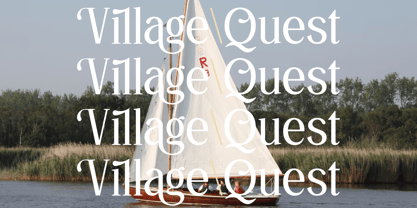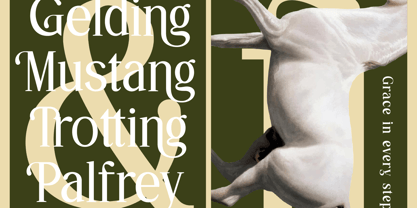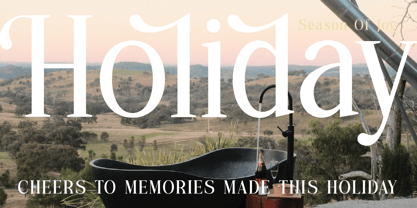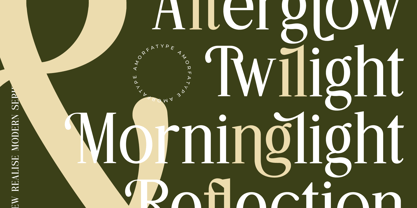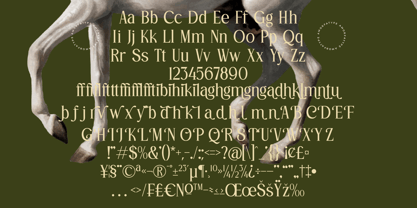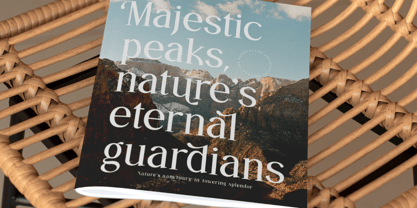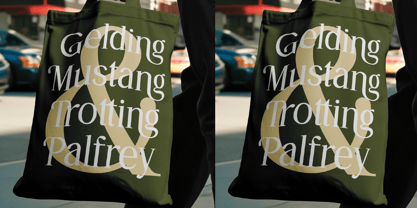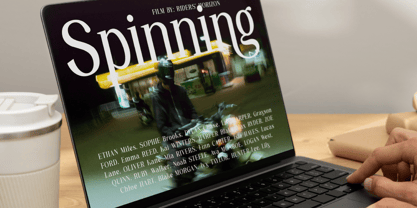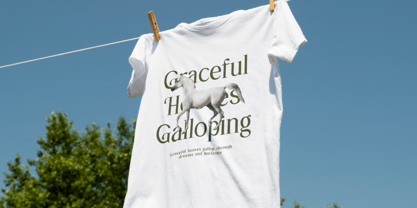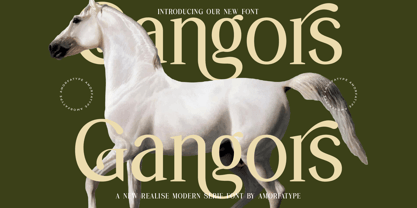
Gangors
by Amorfa Type
The Gangors Font Family was designed by Shiddiq Roihan and published by Amorfa Type. Gangors contains 2 styles and family package options.
Gangors is a modern serif font that combines refined tradition with sleek contemporary design. Its sharp, geometric serifs and clean lines create a bold, distinctive appearance that remains highly readable across various applications. With subtle yet impactful contrasts in stroke weight and elegant detailing, Gangors offers the perfect blend of sophistication and modernity, making it an ideal choice for projects that demand a sense of elegance and clarity.
Whether used for high-end branding, editorial layouts, or sleek digital interfaces, Gangors brings a sense of timeless luxury to the present day. Each character is meticulously crafted to ensure legibility while maintaining the font's contemporary edge. With its versatile design, Gangors stands out in both large display sizes and smaller, more intimate texts, adding a refined touch to any creative work.